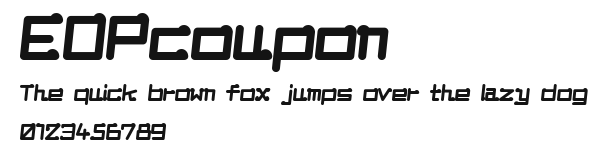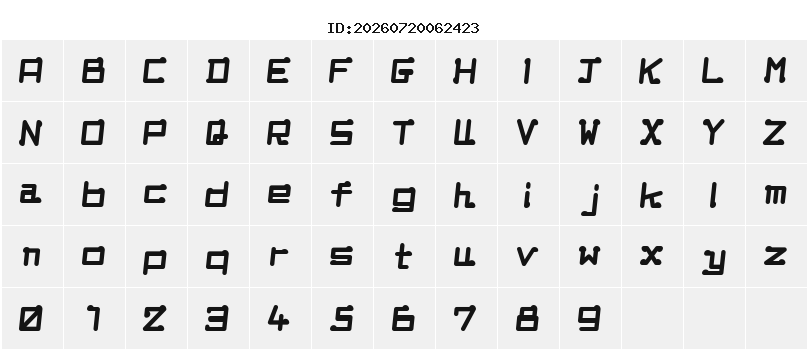
About EOPcoupon.ttf
EOPcoupon.ttf is a modern, elegant sans-serif font designed for ultimate readability and visual harmony. Perfect for branding, headlines, web design, and print materials.